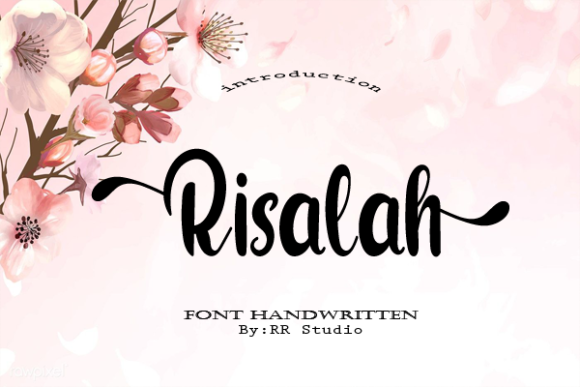
Indulge in the captivating embrace of Risalah, an exquisite handwritten font crafted to elevate your creations. Its graceful curves and flirtatious swashes evoke a sense of timeless elegance, inviting you to express your emotions with a touch of romantic charm.
With its remarkable versatility, Risalah effortlessly adapts to a myriad of design endeavors, from heartfelt greeting cards to captivating headlines. Whether you seek to convey the warmth of personal notes or command attention with bold statements, this versatile script will seamlessly align with your artistic vision.
Unlike ordinary fonts, Risalah possesses an enchanting personality that breathes life into your words. Its intricate details and flowing strokes create a captivating symphony that resonates with the human heart. Allow Risalah to be your artistic muse, guiding you towards creations that captivate and inspire.
Immerse yourself in the world of Risalah and discover a font that transcends the boundaries of mere typography. It's an invitation to express your individuality, to craft designs that ignite emotions, and to leave an unforgettable mark on the world.